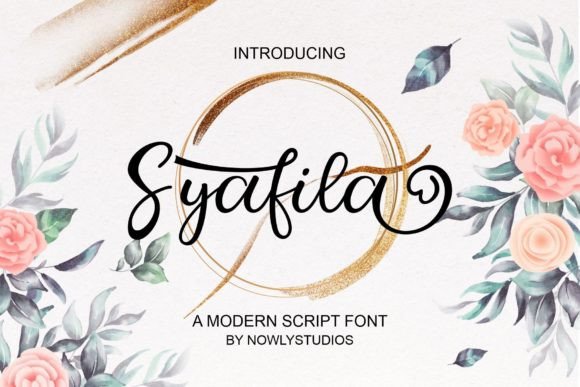
Step into a world of artistry and grace with Syafila Font, a bewitching script font that will cast a spell on your creative endeavors. Its enchanting flow, reminiscent of a gentle breeze, will add a touch of elegance and sophistication to any project.
Designed with meticulous attention to detail, every curve and line in Syafila Font exudes a timeless beauty. Its delicate strokes and organic feel create an authentic handwritten aesthetic, evoking a sense of intimacy and connection. Whether you're crafting logos, creating stunning social media posts, or adding a personalized touch to your wedding invitations, Syafila Font will elevate your designs to new heights.
Immerse yourself in the versatility of Syafila Font. Its effortless adaptability makes it the perfect choice for a wide range of projects, from graceful branding designs to captivating social media campaigns. Let your imagination soar as you explore the endless possibilities that await you with this captivating script font.
Unleash the artist within and embrace the allure of Syafila Font. Its enchanting beauty and boundless versatility will transform your creative visions into breathtaking realities. Experience the magic of Syafila Font today and let your designs bloom with elegance and charm.